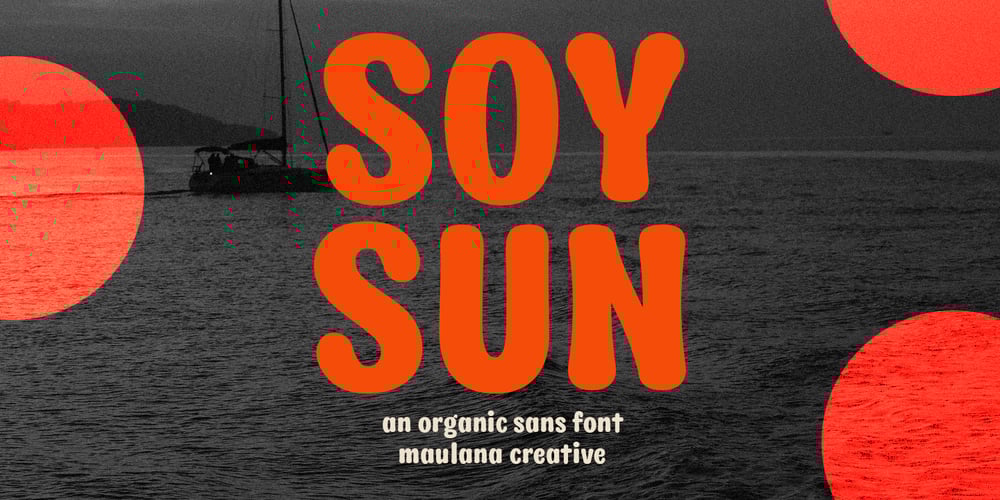
MC Soysun
MC Soysun font
MC Soysun Font Family was designed by Gilang Maulana and published by Maulana Creative. MC Soysun contains 1 styles and family package options. Soysun is a modern flare humanist sans display font. Medium stroke, fun character with a bit of ligatures and alternates. To give you an extra creative work. Soysun font support multilingual more than 100+ language. This font is good for logo design, Social media, Movie Titles, Books Titles, a short text even a long text letter and good for your secondary text font with script or serif. Make a stunning work with Soysun font. Cheers, Maulana Creative